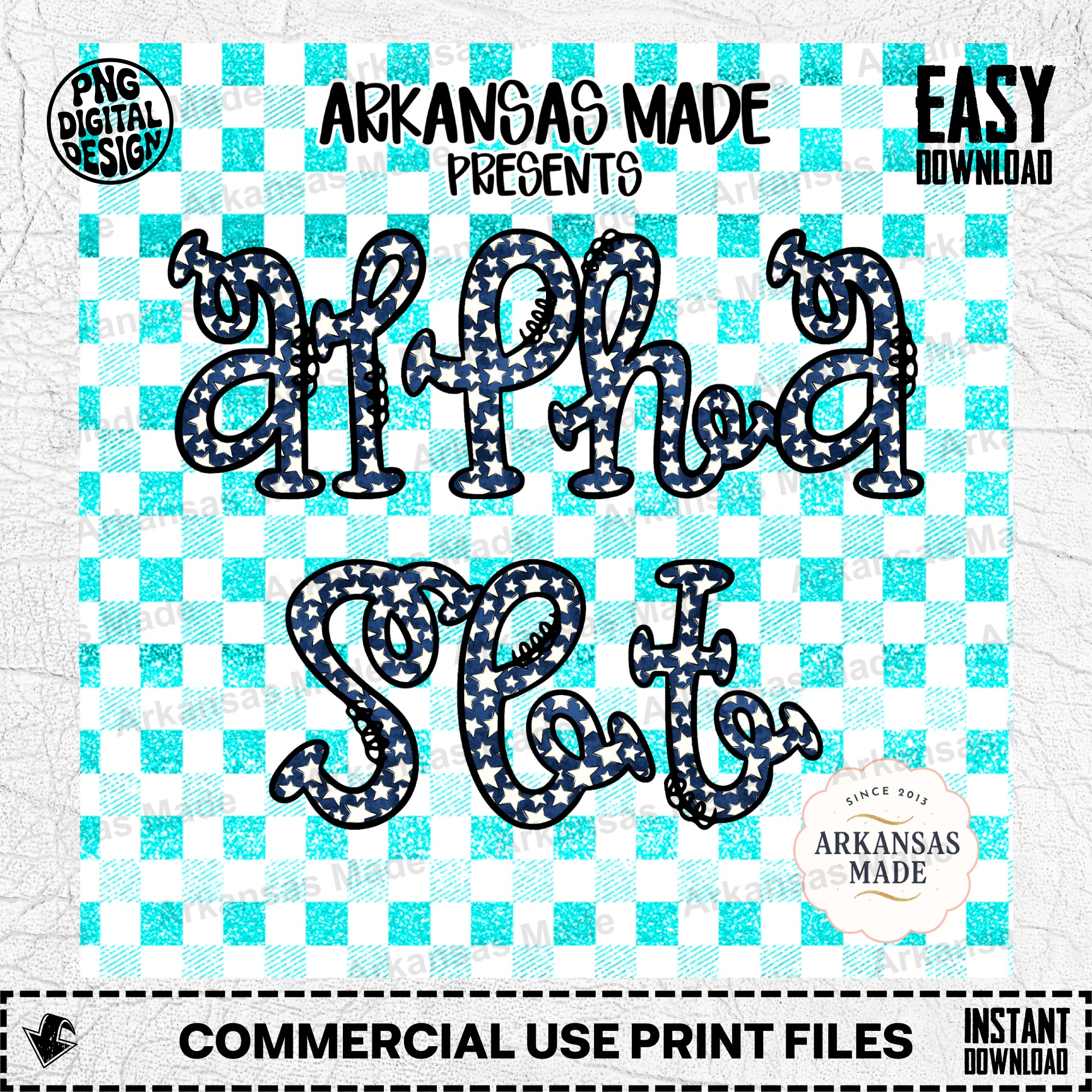
Patriotic Starry Alpha Set PNG, Americana Font Letters, Fourth of July Sublimation Design, USA Alphabet Digital Download
Elevate your patriotic projects with this beautiful Starry Patriotic Alpha Set PNG, perfect for Fourth of July, Memorial Day, and Americana themed creations. This unique digital alphabet features dark blue letters adorned with a distressed white star pattern, offering a charming touch for custom designs. Ideal for crafters, DIY enthusiasts, and small business owners creating personalized apparel, home decor, or digital art. A thoughtful gift for military families or anyone celebrating American pride.